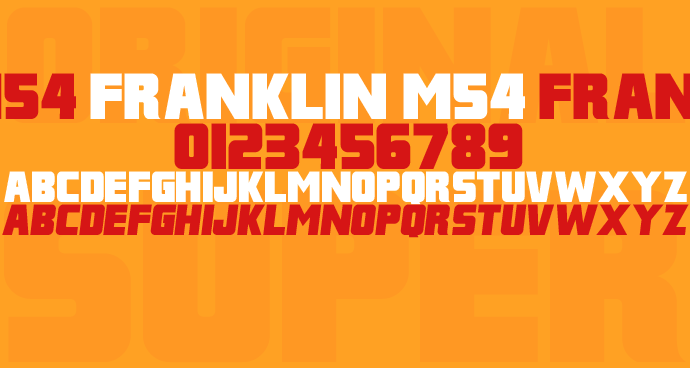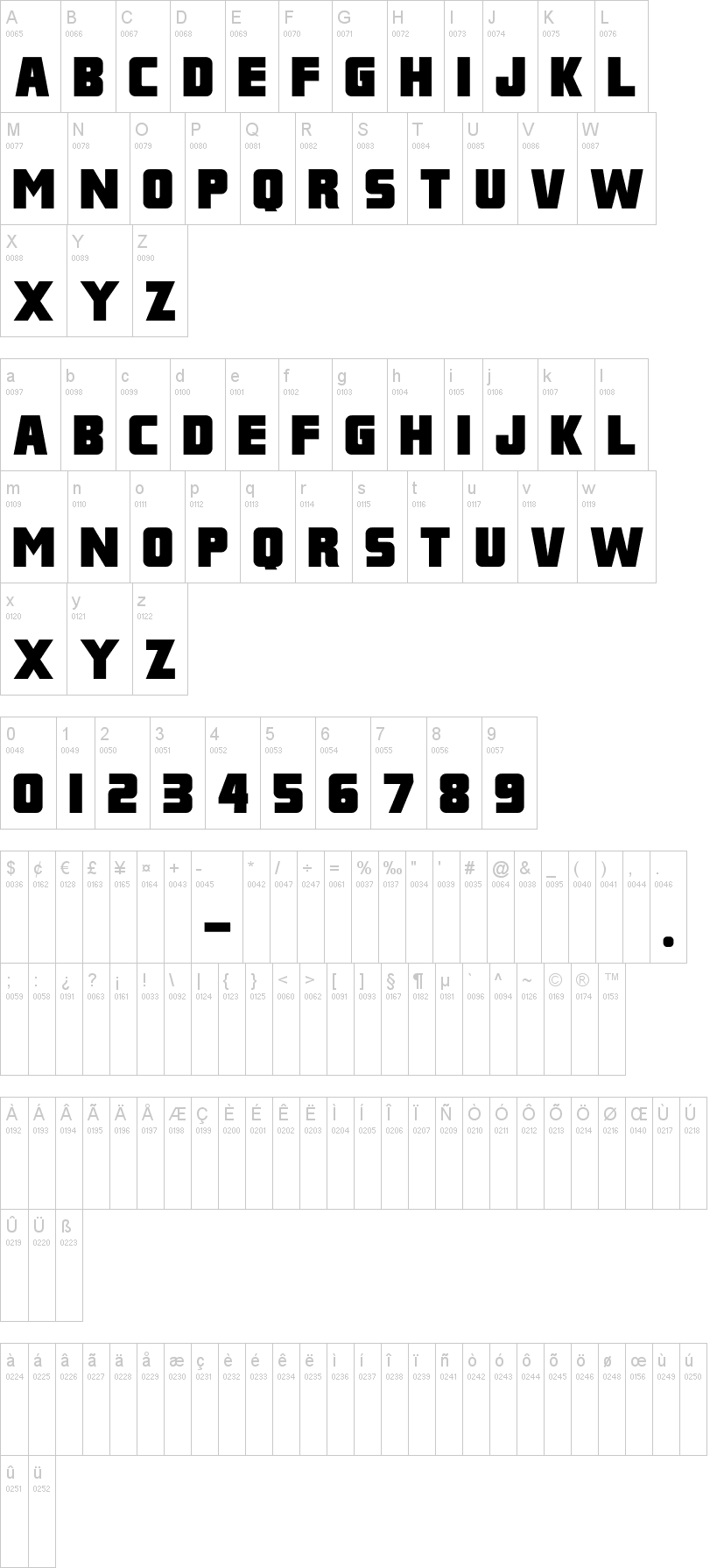
Franklin Italic M54.ttfNote of the authorA bold, black typeface with a slightly retro feel to it. Good for headlining and signage, best in bigger point sizes.